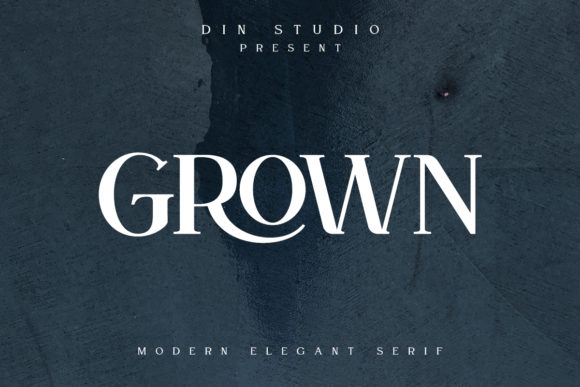
Unleash the Power of Distinction: Introducing Grown Font - The Epitome of Elegance and Versatility
In a world where first impressions matter, Grown Font emerges as a beacon of sophistication, leaving an indelible mark on your design resume. Its meticulous Latin details, adorned with distinctive contrasts, exude an aura of exquisiteness that captivates the senses.
Grown Font is not just a font; it's an artistic expression that elevates your design creations to new heights of visual appeal. Whether you seek a classic charm or a dash of contemporary flair, Grown Font effortlessly adapts, becoming an indispensable tool in your creative arsenal.
Embrace the Allure of Balance and Harmony:
Grown Font's well-balanced structure ensures harmony in every letterform, creating an aesthetic equilibrium that pleases the eye. Its carefully crafted curves and sharp serifs intertwine seamlessly, resulting in a visually captivating display that draws attention and leaves a lasting impression.
Unlock the Gateway to Maximum Versatility:
Grown Font's versatility knows no bounds, making it the perfect companion for a diverse array of design projects. From formal business documents to personal correspondence, from eye-catching marketing materials to captivating social media posts, Grown Font seamlessly adapts, enhancing your message with an air of sophistication and professionalism.
Experience the Elegance of Subtlety:
Grown Font's subtle beauty lies in its ability to elevate your designs without overpowering them. It complements your content, allowing your words and visuals to take center stage while adding a touch of understated elegance that speaks volumes.